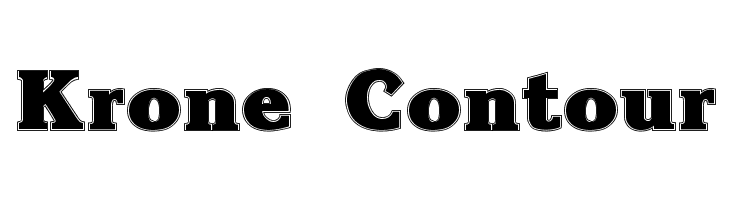
A bold, contoured font with a vintage yet modern appeal.
A bold, contour-outlined font with a collegiate, varsity style.
A bold, contour-styled font with a modern yet classic appeal.